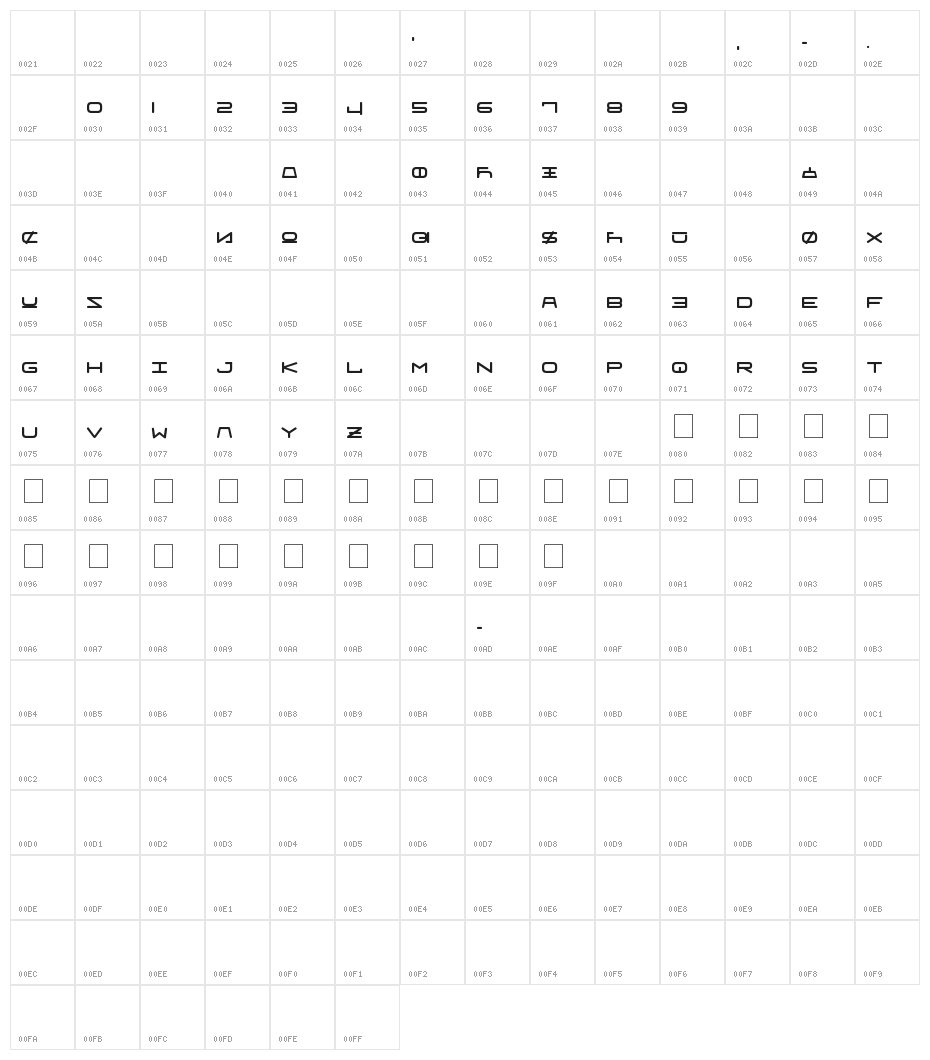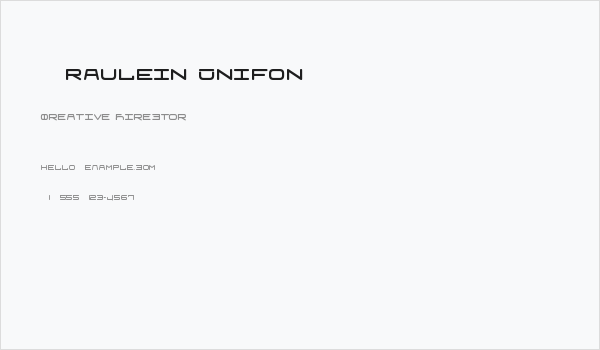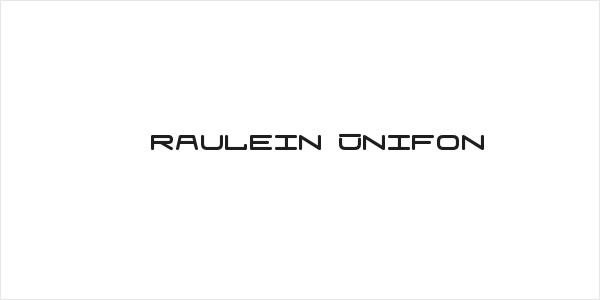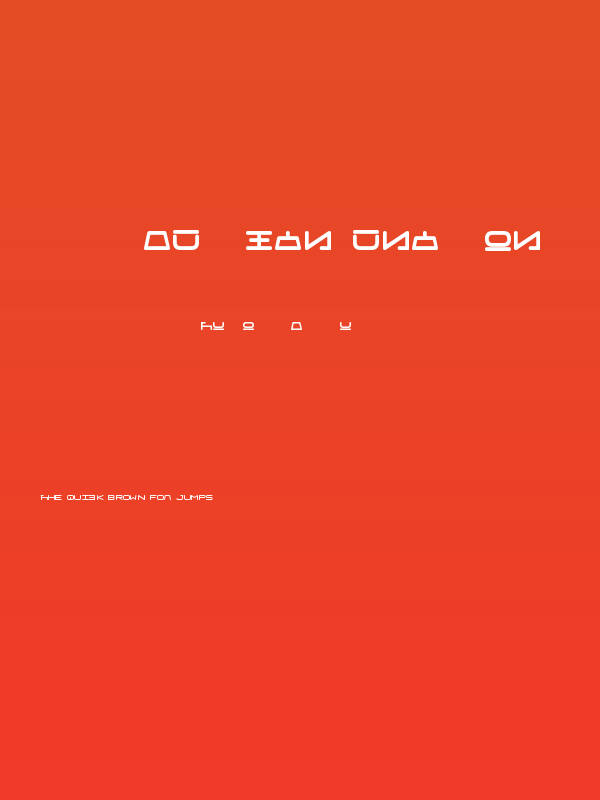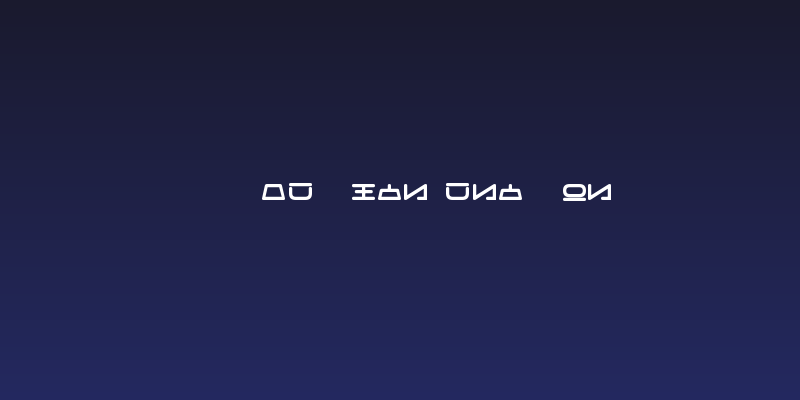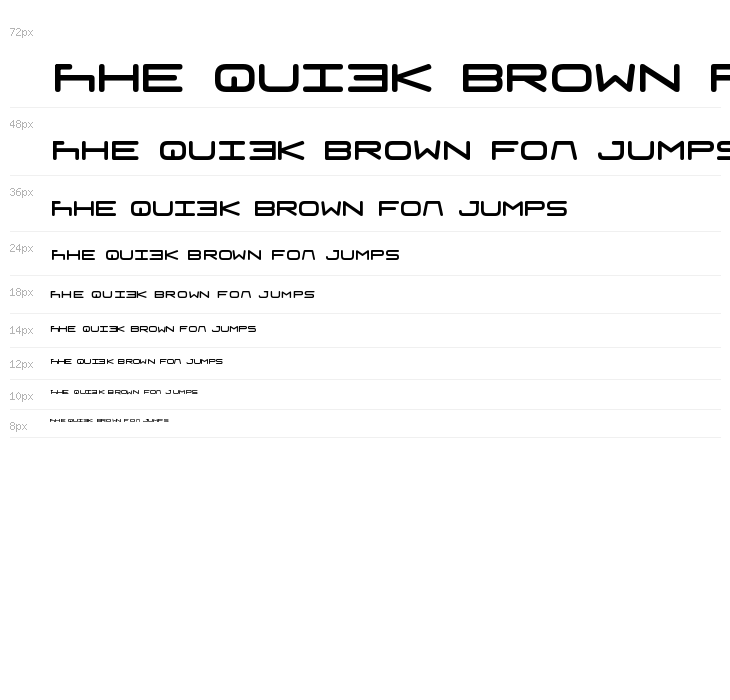
Fraulein Unifon Font
Fraulein Unifon Description
This font features a futuristic and geometric design, characterized by its rounded edges and uniform stroke thickness. The characters are constructed with a consistent width, giving it a monospaced appearance, although it retains a modern and sleek aesthetic. The uppercase letters are bold and prominent, while the lowercase letters maintain the same structural integrity, ensuring readability. Numbers and special characters are designed to match the overall style, making it versatile for various applications. The font's unique style is ideal for projects that require a contemporary and technological feel.
| Use Case | Headlines, Logos, Digital interfaces |
| Proposed Projects | Ideal for tech branding, sci-fi themed designs, digital interfaces, and modern advertising. |